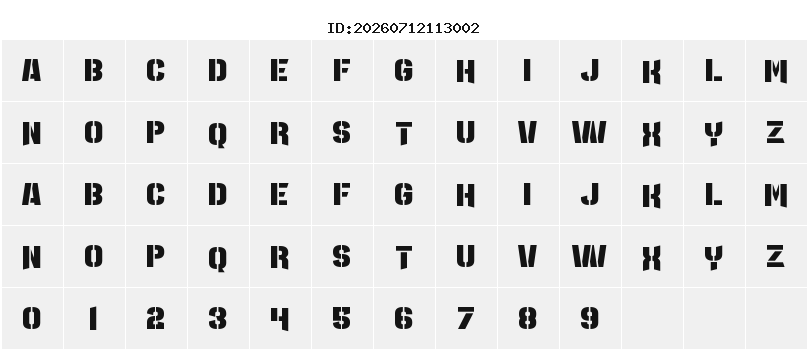
Major League Duty Preview
• Font Name: Major League Duty
• Full Font Name: Major League Duty
• Version: Version 1.00 February 4, 2016, initial release
• Designer: AM
About Major League Duty.otf
Major League Duty.otf is a modern, elegant sans-serif font designed for ultimate readability and visual harmony. Perfect for branding, headlines, web design, and print materials.